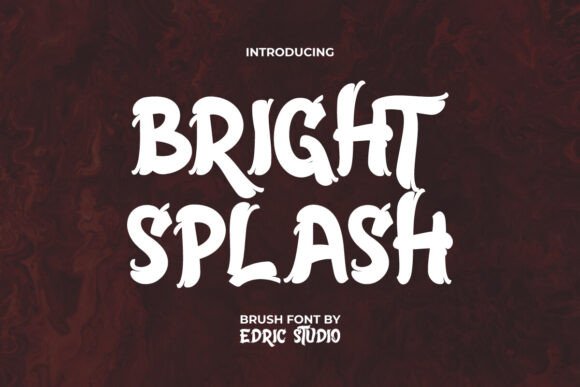
The Ultimate Design Game-Changer: Bright Splash Font
Have you ever been in the middle of a design project, and suddenly, you’re stuck on finding the perfect font? I recall a particularly frustrating experience while working on a branding project for a trendy new cafe. The client wanted a font that was vibrant, fun, and highly legible. After hours of scouring through font libraries, I stumbled upon Bright Splash Font. It was love at first sight! ✨
What Makes Bright Splash Font Special?
Bright Splash Font comes with a full set of all caps for both uppercase and lowercase basic characters, numbers, and a large range of punctuation and symbols. It features a stunning character set, perfectly managed with good spacing and kerning. This font is designed to complement any project, including billboards, brand logos, brochures, business cards, covers, headers, labels, packaging designs, posters, screen prints, stationery, stickers, websites, and more.
- ✨ Versatility: Bright Splash Font can be used across a wide range of design projects.
- ✅ Legibility: The font is highly legible, even at smaller sizes.
- 💥 Visual Impact: The bold, bright characters make a statement and grab attention.
- 👍 Easy to Pair: It pairs well with a variety of other fonts, making it easy to use in multi-font designs.
- 🤔 Limited Scripting: Bright Splash Font is primarily an all-caps font, which might limit its use in projects requiring extensive scripting.
- ⚠️ Overuse: Its bold nature means it can be overwhelming if overused in a design.
The Designer Inspiration Behind Bright Splash Font
Bright Splash Font was inspired by the vibrant street art scene in urban environments. The designer aimed to capture the energy and playfulness of these artistic expressions in a font that could be used across various mediums. The result is a bold, eye-catching font that’s perfect for making a statement.
Q: Is Bright Splash Font suitable for body text?
A: While Bright Splash Font is highly legible, its bold nature makes it more suitable for headings and titles. For body text, consider using a complementary font that’s easier to read.
Q: Does Bright Splash Font support non-English characters?